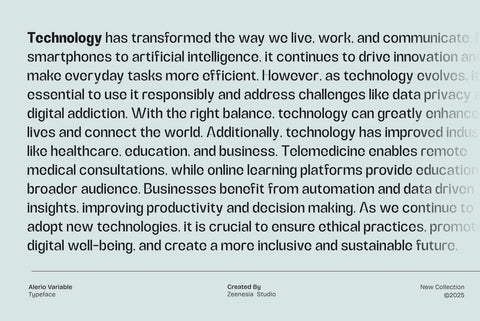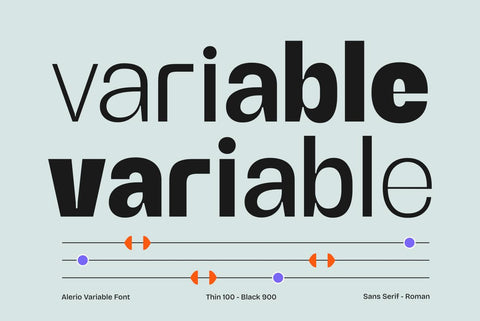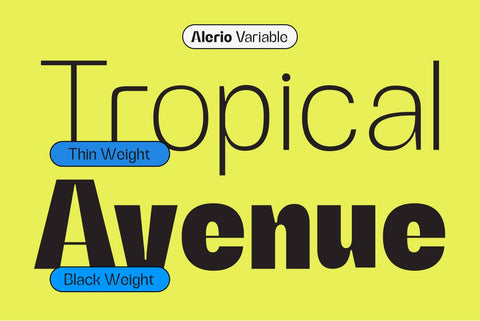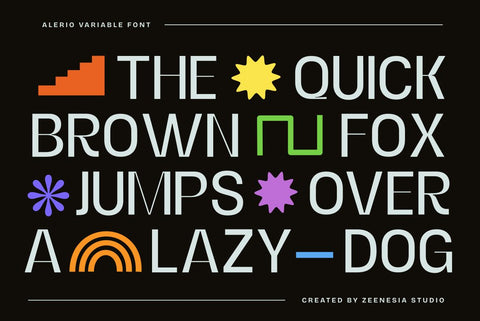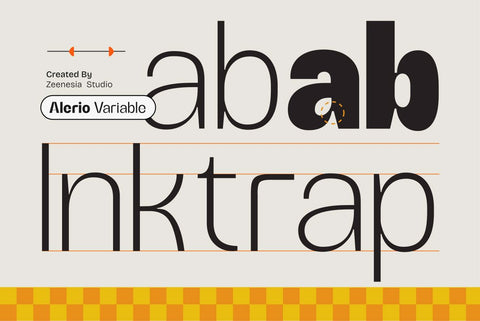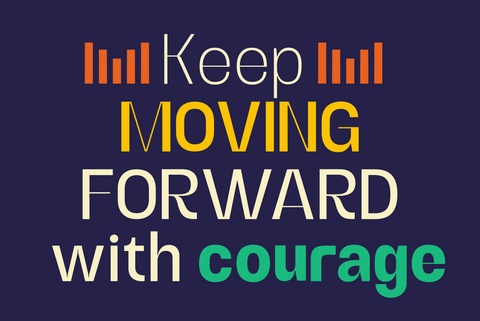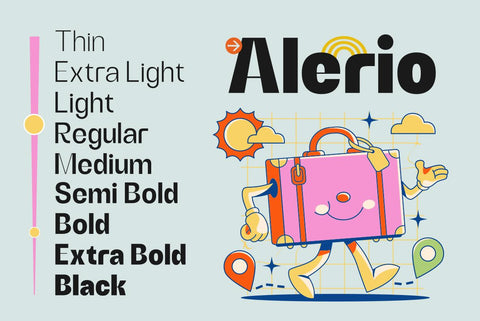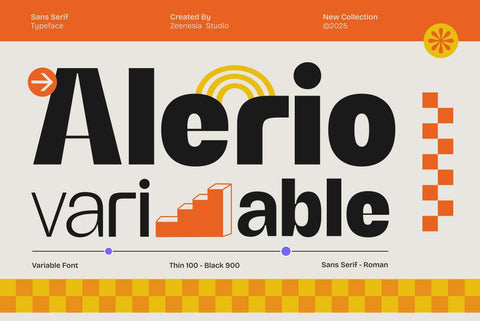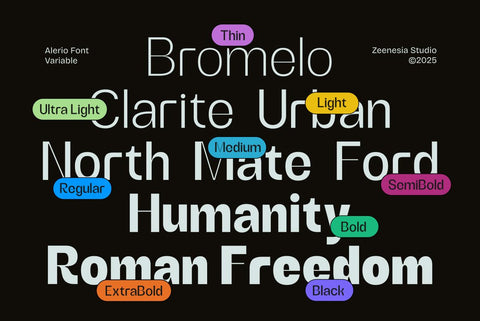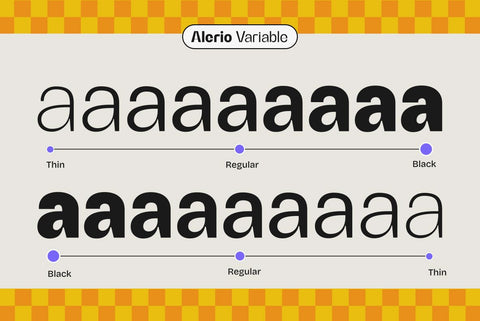
Alerio – Variable Font
Say hello to Alerio – A modern sans serif that’s bold, flexible, and full of fun! Alerio is a bold and versatile sans serif typeface designed to bring clarity, strength, and modern charm to any design. With a full range of weights from Thin to Black, Alerio adapts seamlessly to different creative needs—whether for branding, editorial design, digital interfaces, or striking display headlines.
With its clean shapes and smooth curves, Alerio feels fresh and easy to read, but also brings a cheerful personality to your design. The variable font format allows for smooth flexibility, giving designers complete control over weight and expression in typography.
Alerio is here to make your work shine brighter!